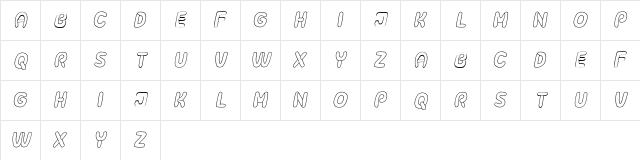
Surfaces 3D Lighten Italic Font Preview
Design Context for Surfaces 3D Lighten Typeface
Surfaces 3D Lighten offers clean, dependable letterforms without strong stylistic allegiance, making it a practical choice for designers who need flexibility. Its italic angle brings a sense of urgency and motion to the letterforms. The delicate stroke weight brings airiness and refinement to layouts.